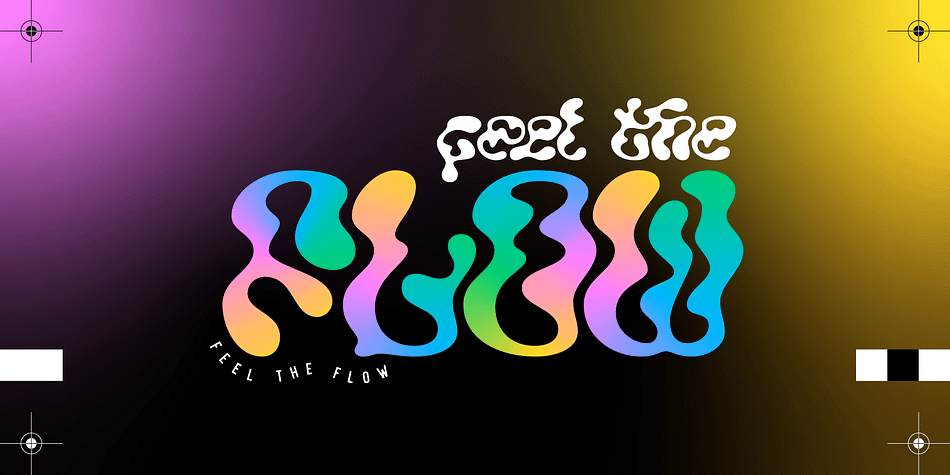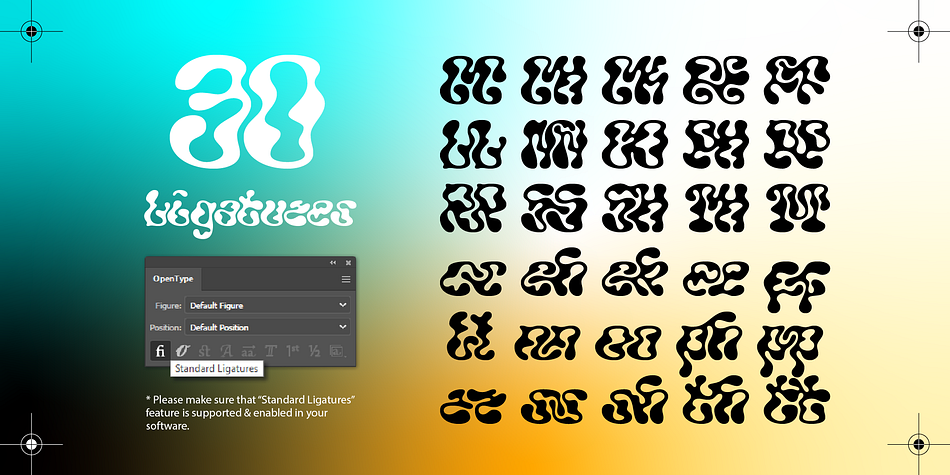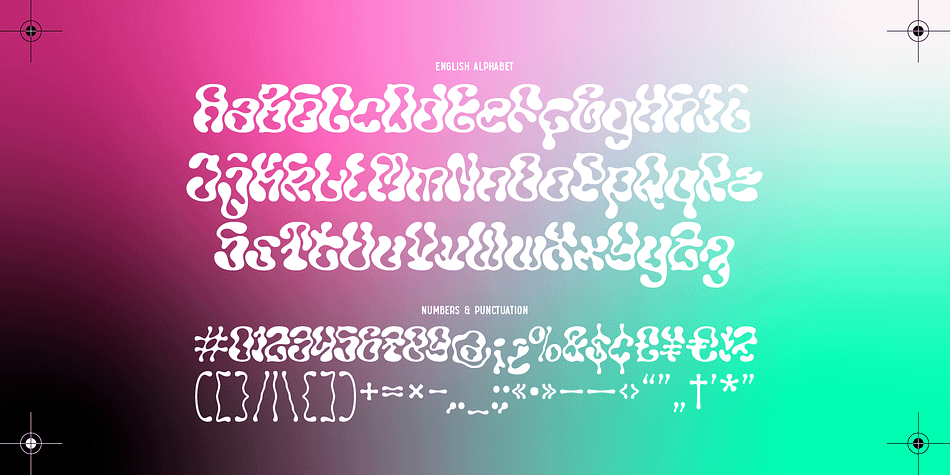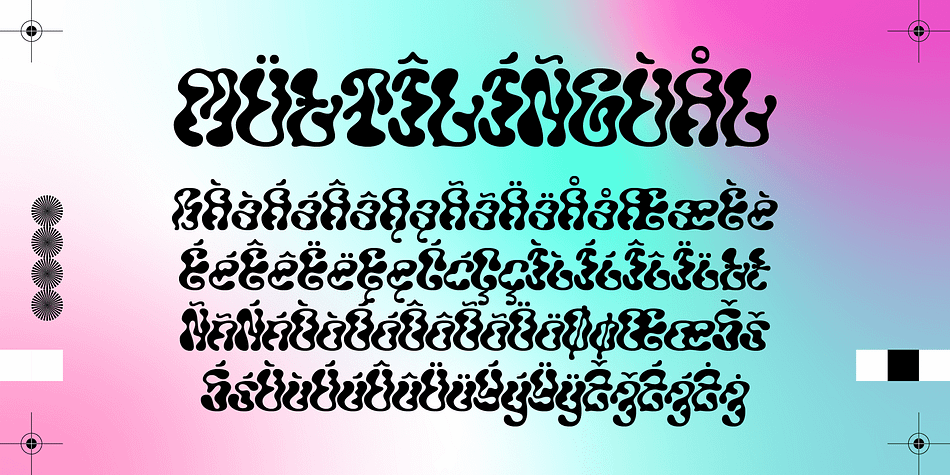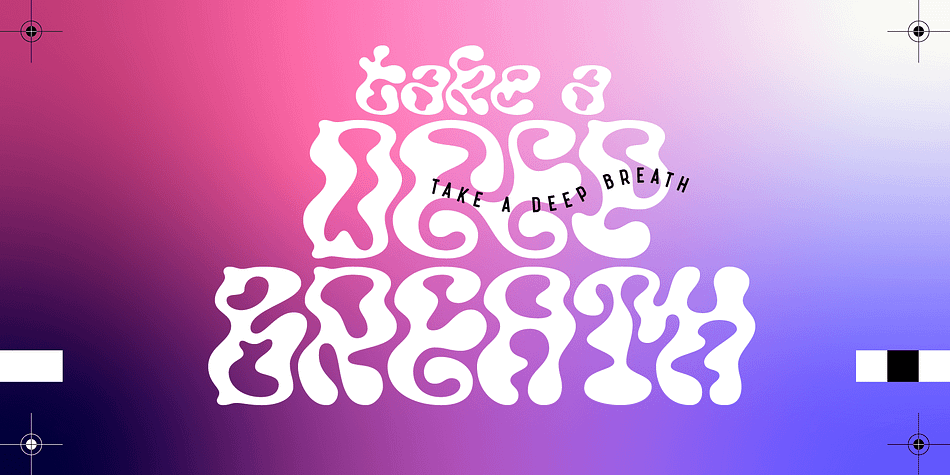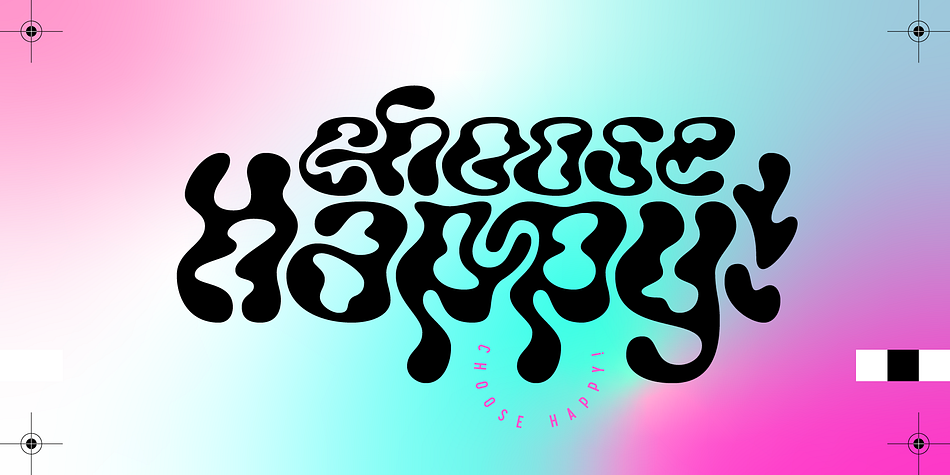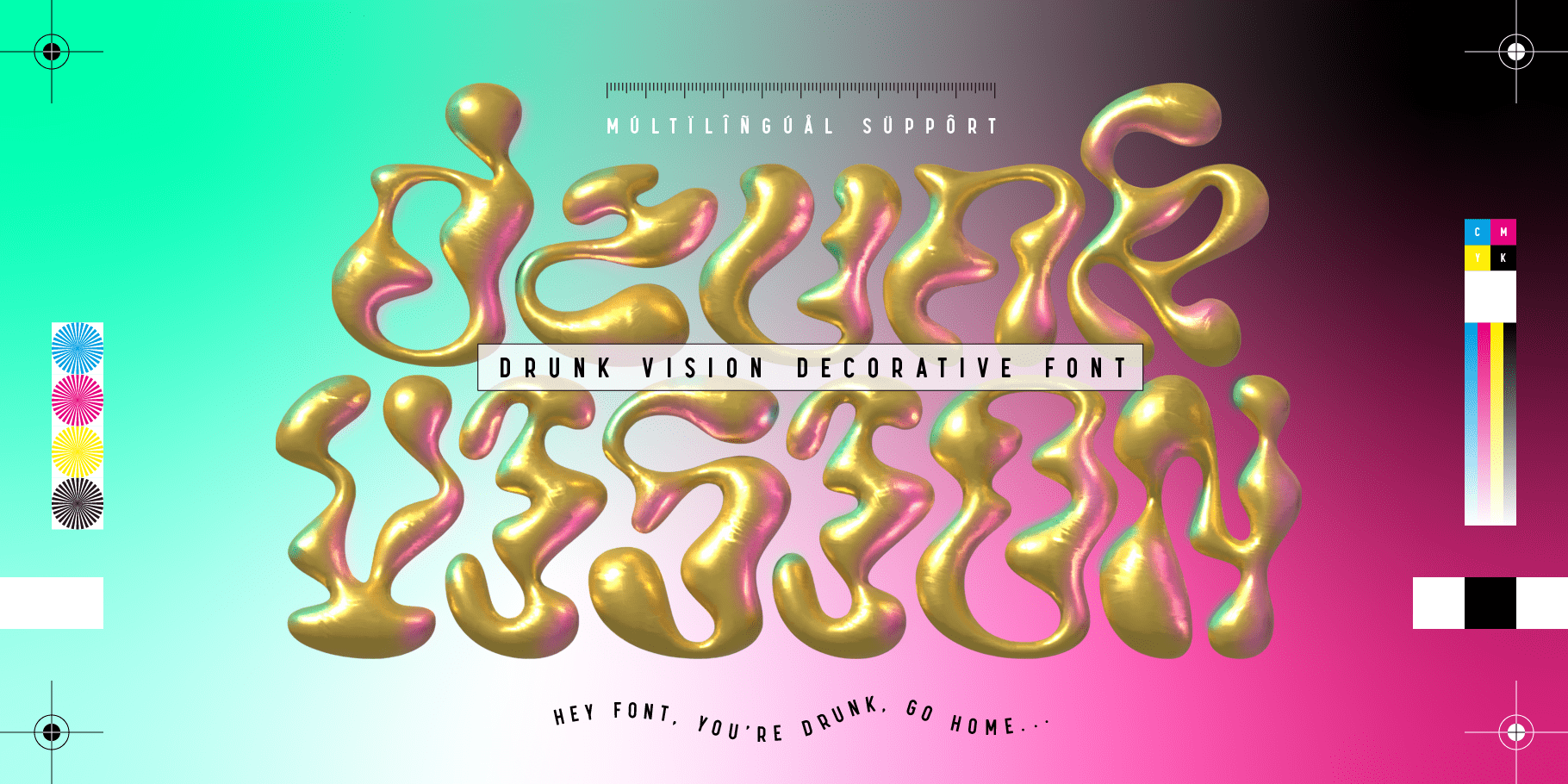
Drunk Vision
Designed by Gleb Guralnyk, Drunk Vision is a display sans, novelty and retro font family published by Gleb Guralnyk.
Hello! Introducing a creative font named Drunk Vision. It’s an abstract shape smooth typeface with trendy distorted shape. This font includes lots of multilingual characters (check out a screenshot with available letters and signs). Thirty fancy ligatures will make your lettering more organic and natural (You can access these ligatures by activating a “Standard Ligatures” on your OpenType panel).